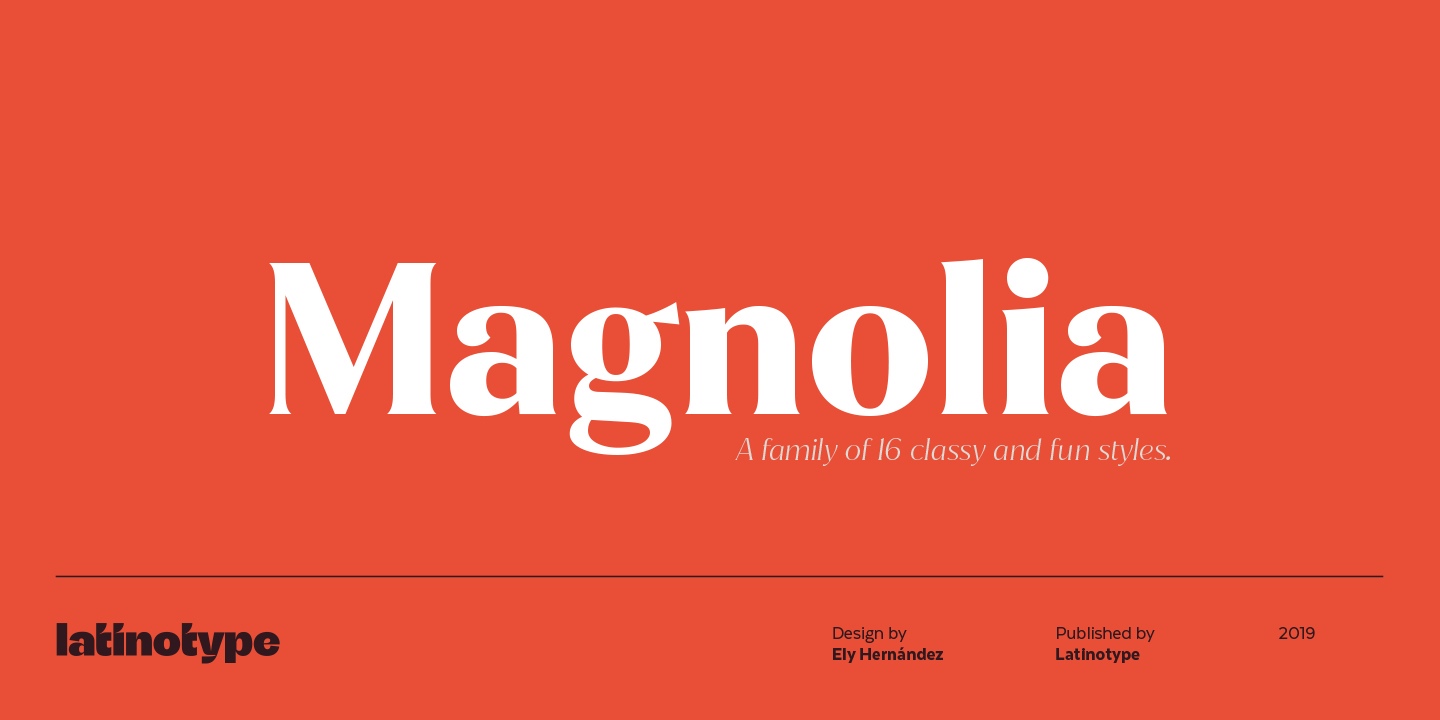
Magnolia Font
Magnolia Font excels in Southern hospitality branding, botanical garden signage, elegant floral boutique displays, historic plantation venue materials, garden wedding invitations, antebellum heritage sites, Southern charm restaurant menus, magnolia tree nursery marketing, gracious living magazines, and classic Southern cultural celebrations. This graceful typeface brings Southern elegance and botanical beauty to any heritage-focused design project.
Magnolia Font is exciting because it captures the timeless grace and natural beauty of the magnificent magnolia blossom, featuring elegant letterforms that evoke the gentle sophistication and enduring charm that defines authentic Southern hospitality and botanical splendor. Its graceful character instantly conveys natural elegance, cultural heritage, and the refined beauty that magnolia trees have symbolized across generations of Southern tradition.
Magnolia Font family includes Light, Regular, Medium, and Bold weights with botanical alternates, floral flourishes, Southern ornamental elements, and garden symbols that enhance the natural aesthetic, providing heritage designers with graceful tools for creating typography that celebrates botanical beauty and Southern cultural refinement with timeless elegance.
Southern heritage designers appreciate Magnolia Font for its exceptional ability to convey botanical elegance and cultural refinement through delicately crafted letterforms. The font's graceful character and floral details create immediate associations with garden parties, Southern hospitality, and the natural beauty that makes magnolia trees beloved symbols of grace, resilience, and the timeless appeal of Southern botanical heritage.
The design inspiration behind Magnolia Font draws from botanical illustrations, Southern cultural traditions, and the natural elegance of magnolia blossoms that have graced Southern landscapes for centuries, making it particularly effective for heritage venues, botanical organizations, and hospitality brands seeking to establish authentic connections with Southern charm and natural beauty. Cultural teams working on heritage projects find this font essential.
Whether used for botanical gardens, Southern heritage venues, or elegant hospitality experiences, Magnolia Font delivers the perfect combination of natural grace and cultural authenticity. Its botanical appeal and Southern charm make it an indispensable choice for brands that celebrate natural beauty, honor Southern heritage, and embrace the timeless elegance of magnolia blossoms and gracious Southern hospitality traditions.